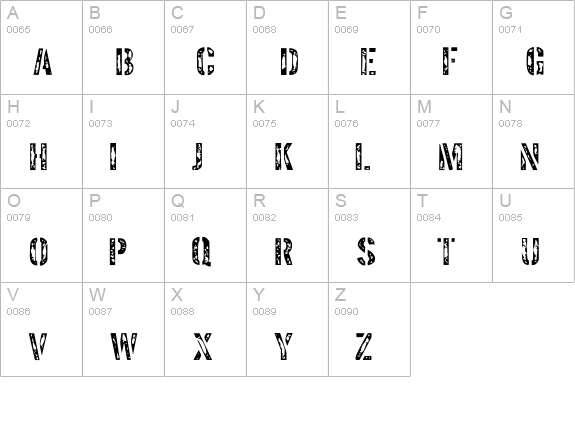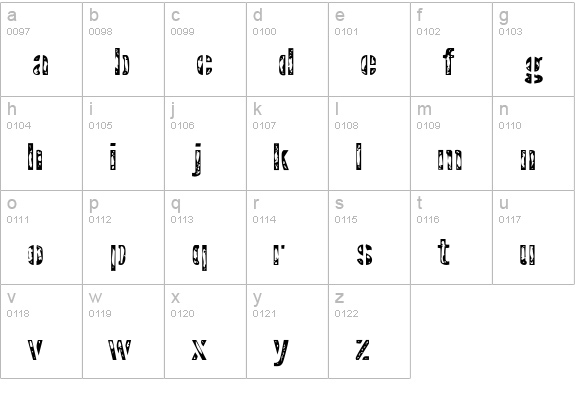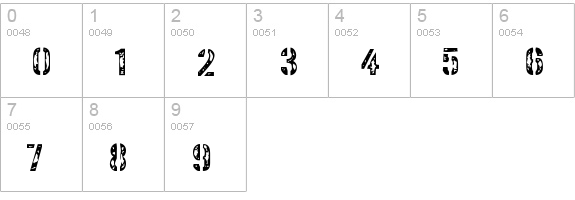
Interplanetary Crap Font Details
Introducing Interplanetary Crap, a whimsical and unique font that will transport your designs to another dimension! With its playful and out-of-this-world style, this font is perfect for adding a touch of cosmic charm to your projects. Interplanetary Crap is a free font that is freely available to download at FontsMarket.com. Whether you're designing a poster for a sci-fi convention or creating eye-catching social media graphics, this font will surely make your text pop with its extraterrestrial flair. Crafted with precision and attention to detail, Interplanetary Crap features a blend of futuristic shapes and organic curves, creating a harmonious balance between the unknown and the familiar. Its captivating letterforms evoke a sense of adventure and curiosity, making it an ideal choice for projects that seek to captivate and engage the imagination. Delve into the depths of the cosmos with Interplanetary Crap's extensive character set, including uppercase and lowercase letters, numerals, punctuation marks, and a range of special characters. This font provides you with endless possibilities to customize your designs and truly make them one-of-a-kind. Whether you're an experienced designer or just starting out, Interplanetary Crap is user-friendly and compatible with various design software. So, go ahead and let your creativity soar as you explore the vastness of this font's interstellar features. Download Interplanetary Crap today, free of charge, exclusively at FontsMarket.com. Unleash your imagination and embark on a typographic voyage that will leave your audience astounded. Transform your designs into a cosmic wonderland with Interplanetary Crap, the font that boldly goes beyond the ordinary.